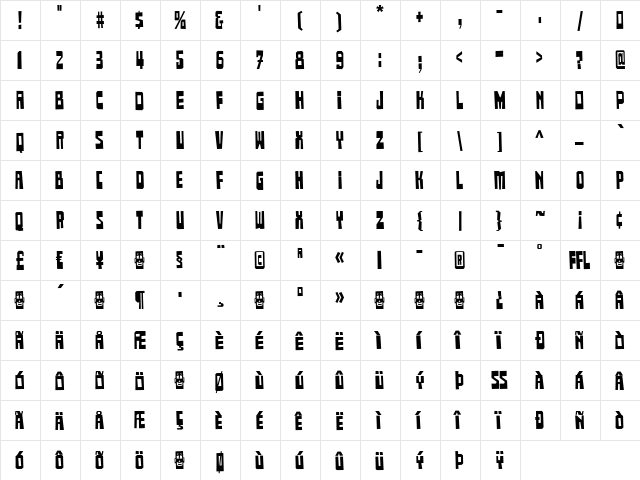
Comrade-BoldCondensed Regular Font Preview
| Designer | Jim Parkinson |
Design Context for Comrade-BoldCondensed Typeface
Comrade-BoldCondensed is a composed and adaptable typeface that performs quietly and consistently across a wide range of design contexts. The heavy weight commands attention and anchors typographic hierarchies. The condensed width makes it efficient for tight spaces without sacrificing legibility.